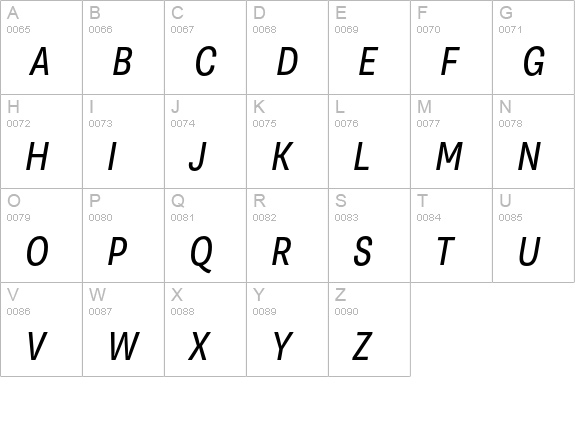
Supria Sans Cond Regular Obliq Font Details
Supria Sans Cond Regular Obliq is the standard, neutral, condensed-width variant in the Supria typeface family \xE2\x80\x94 well suited to general body text, paragraphs, and standard typographic work.
Supria Sans Cond Regular Obliq font is a modern and stylish typeface that adds a touch of sophistication to any design project. With its sleek and elegant appearance, this font is perfect for a wide range of applications, from branding and advertising to web design and print materials. The oblique style of Supria Sans Cond Regular Obliq font gives a dynamic and contemporary look, making it a versatile choice for both digital and print projects. Its condensed form allows for efficient use of space while maintaining readability and impact. One of the best things about Supria Sans Cond Regular Obliq font is that it is available for free download at FontsMarket.com. This means that you can easily access and use this high-quality font in your projects without any cost. Whether you're a professional designer or a hobbyist, this font is a valuable addition to your font library. Overall, Supria Sans Cond Regular Obliq font combines style, versatility, and accessibility, making it a must-have for anyone looking to elevate their design work. Download it for free today and see the difference it can make in your projects!